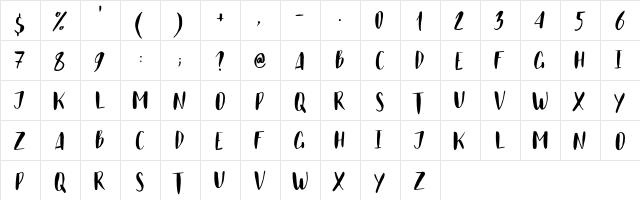
Just Believe Caps Regular
Design Context for Just Believe Caps Typeface
Just Believe Caps is a composed and adaptable typeface that performs quietly and consistently across a wide range of design contexts.